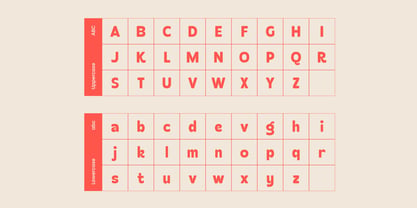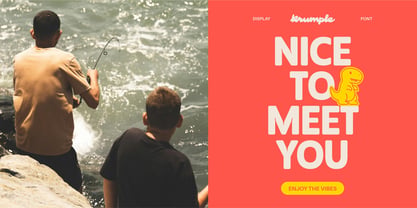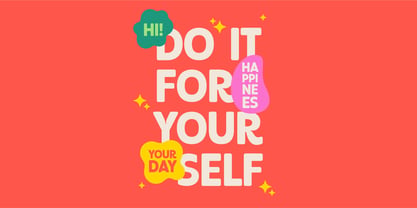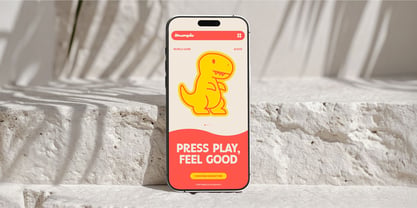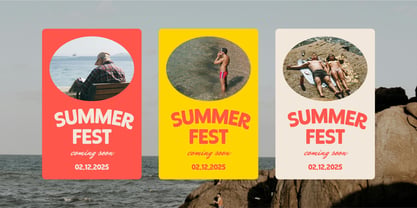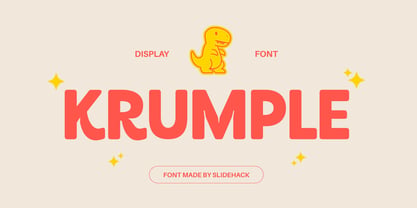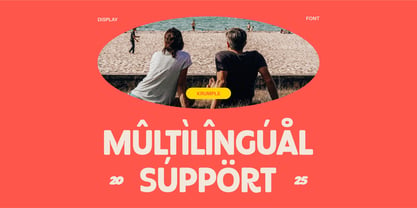
Krumple
The Krumple Font Family was designed by Excellent Ritma Florendia and published by Slidehack. Krumple contains 1 styles. More about this family
Krumple is a bold, playful display font designed to bring personality and warmth to your projects. With rounded edges and quirky letterforms, it’s perfect for branding, posters, packaging, and social media graphics. Ideal for children’s themes, fun event designs, or standout headlines, Krumple works seamlessly in all design software, adding charm and creativity to any visual composition.